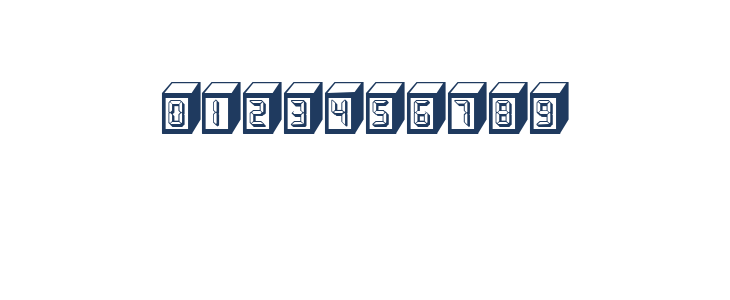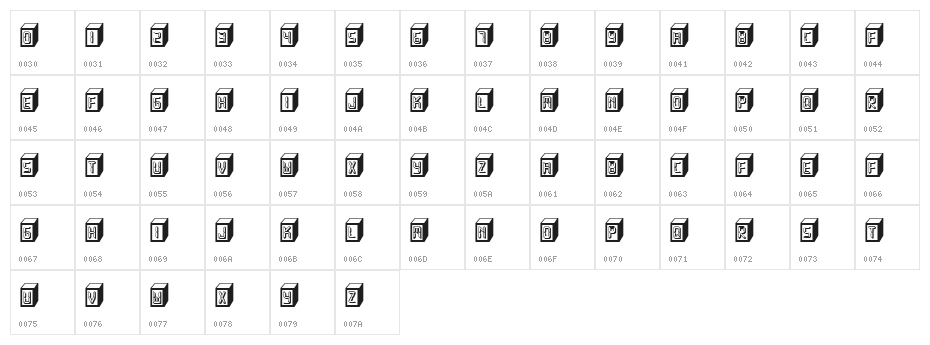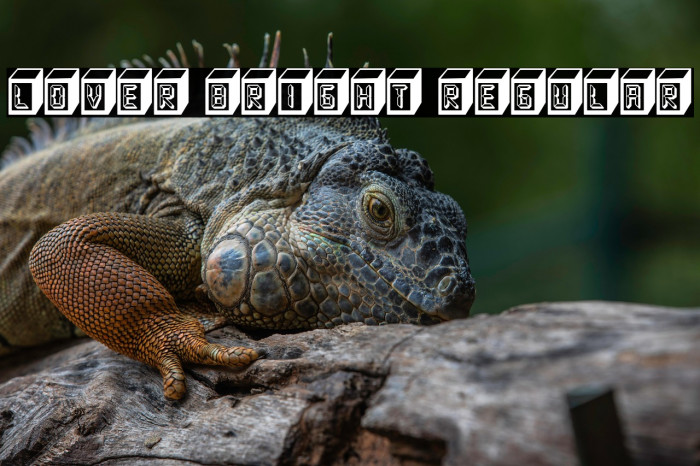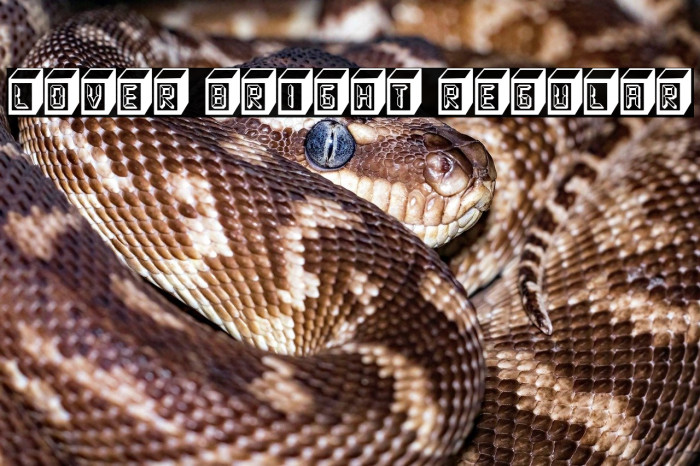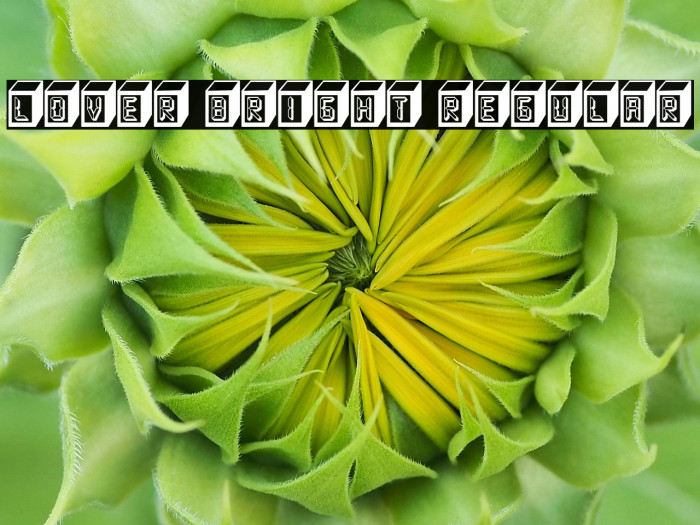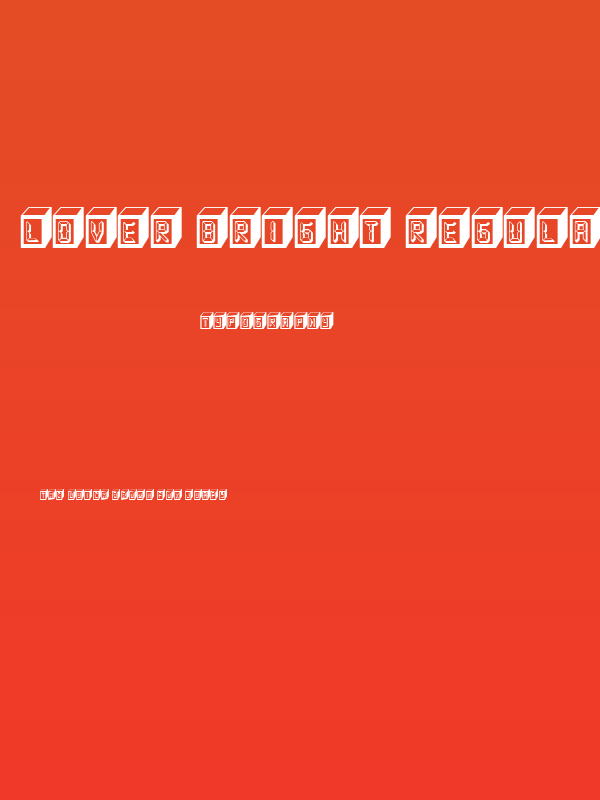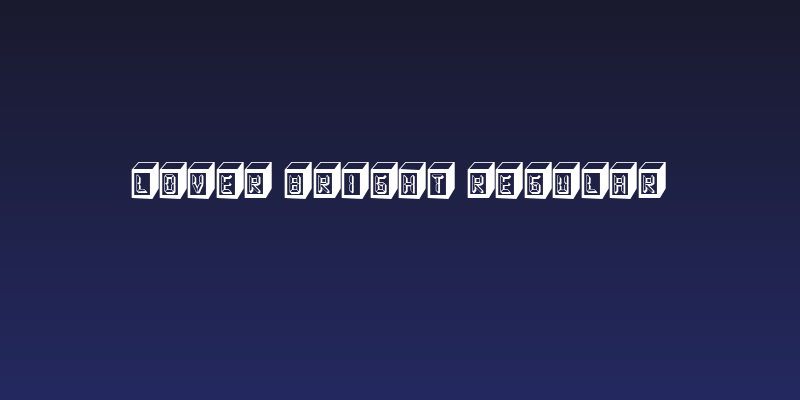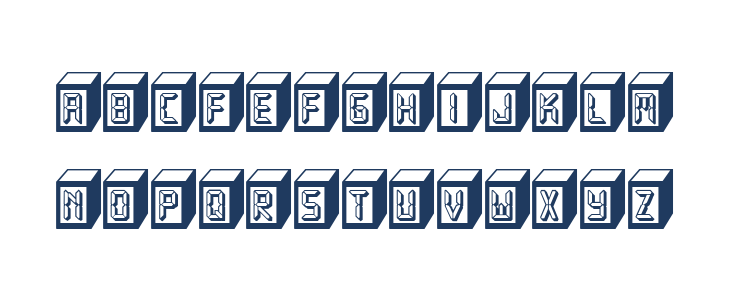
Lover Bright Regular Font
Lover Bright Regular Description
This font features a unique 3D block design where each character is encapsulated within a cube-like structure. The letters are outlined with a bold, black stroke, creating a strong contrast against the white interior. The geometric style gives it a modern and playful appearance, making it stand out in any design. The characters are uniformly spaced within their cubes, providing a consistent and structured look. This font is ideal for projects that require a bold and eye-catching display, such as posters, headlines, or branding materials.
| Proposed Projects | Ideal for posters, headlines, branding, and any design needing a bold, modern touch. |